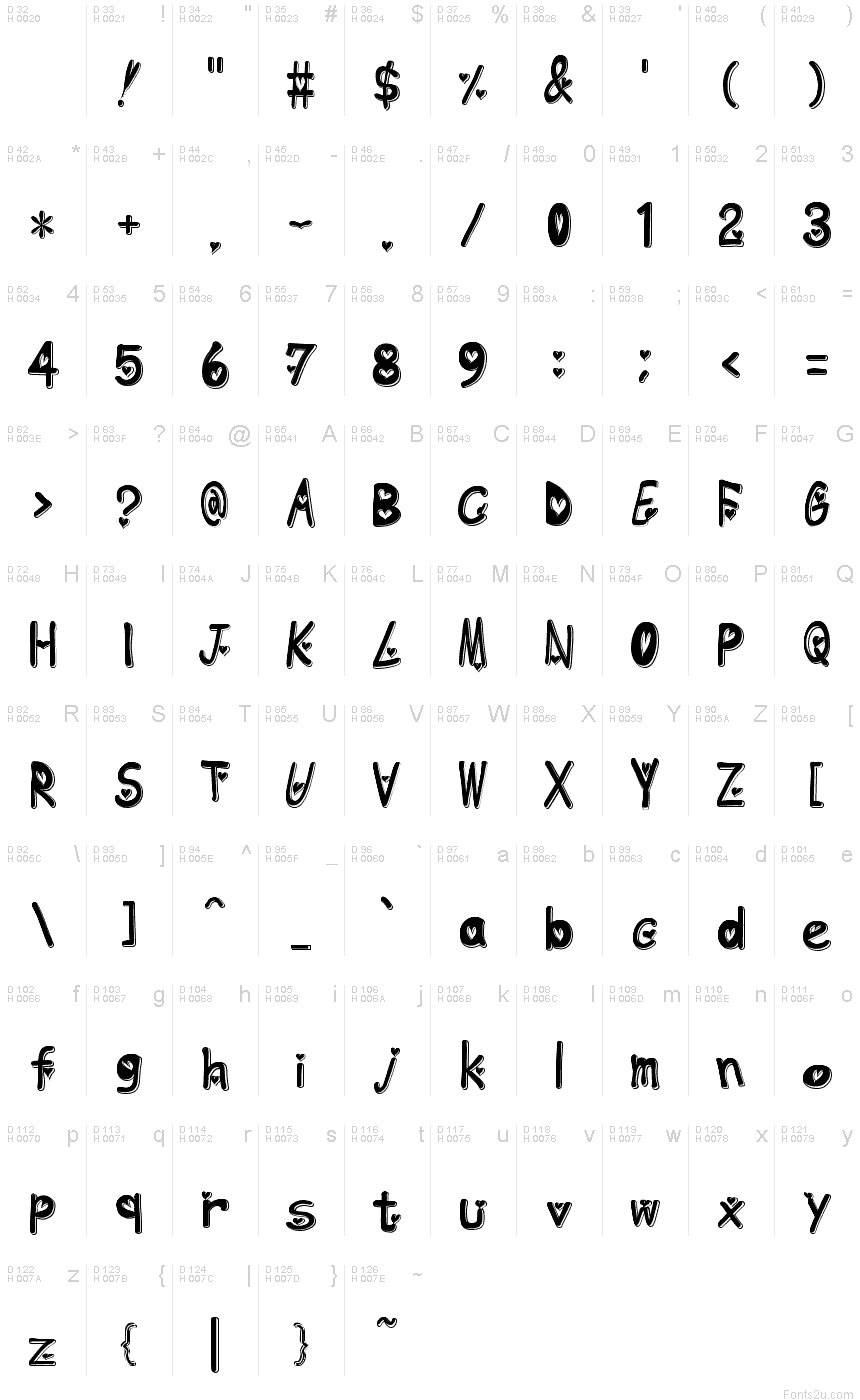
heart emboss
Heart Emboss font by Yokoyoko is a free Valentine decorative font with chunky, inky letters puffed up like candy and sprinkled with tiny hearts. The bold black shapes and soft curves feel hand-drawn and a little squishy, giving any word an instant dose of sugar-sweet charm without looking overly polished.
Using Heart Emboss, love notes, Valentine cards, children's party invites, stickers, classroom posters, and playful social graphics all gain a warm, homemade vibe. This free font works best big, where its embossed look and inner heart details stay crisp; pair it with a clean sans serif in small text to keep everything readable and balanced.